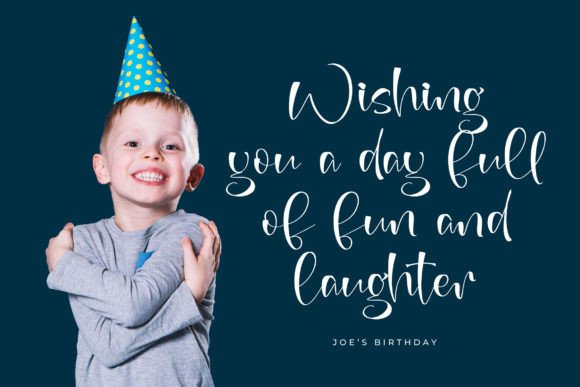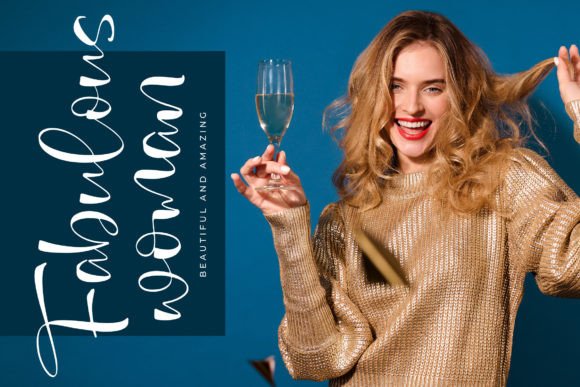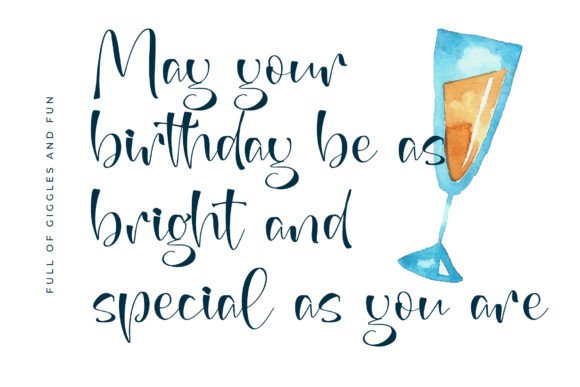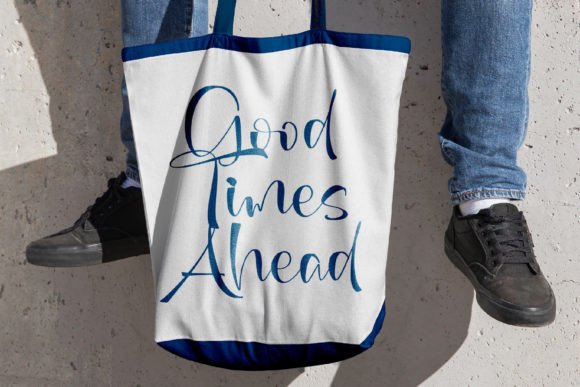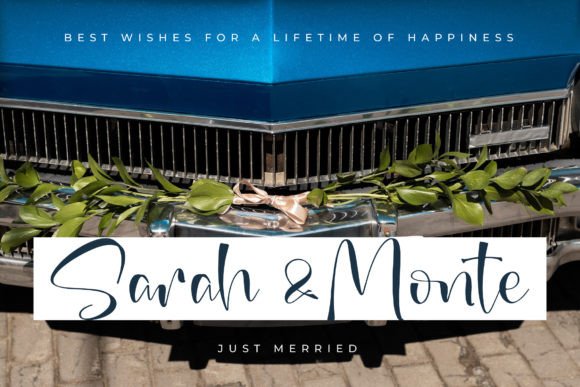
Introducing Annets Birthday Font: The Ultimate Luxury Script Font for Your Creative Projects
Are you a designer or crafter looking for a font that exudes luxury and sophistication? Look no further than Annets Birthday Font, a stunning script font that’s perfect for a wide range of creative projects. In this article, we’ll take a closer look at Annets Birthday – Beautiful Script Font and explore its features, uses, and benefits.
What is Annets Birthday Font?
Annets Birthday Font is a luxury script font designed to add a touch of elegance and refinement to your projects. With its flowing curves and sophisticated lettering, this font is ideal for creating high-end designs that demand attention. Whether you’re working on a logo, branding project, or product packaging, Annets Birthday Font is the perfect choice.
Key Features of Annets Birthday Font
- Luxury Script Style: Annets Birthday Font boasts a beautiful script style that’s perfect for creating luxurious and high-end designs.
- Versatile: This font is suitable for a wide range of projects, including logos, branding projects, homeware designs, product packaging, and more.
- Elegant Lettering: The font features elegant lettering with flowing curves, making it perfect for creating sophisticated designs.
Uses of Annets Birthday Font
Annets Birthday Font is a versatile font that can be used for a wide range of projects, including:
- Logos and Branding Projects: Create a luxurious and sophisticated brand identity with Annets Birthday Font.
- Product Packaging: Add a touch of elegance to your product packaging with this stunning script font.
- Homeware Designs: Use Annets Birthday Font to create beautiful homeware designs, such as quotes, posters, and labels.
- Mugs and T-Shirts: Create stunning designs for mugs and t-shirts with this versatile font.
- Greeting Cards and Invitations: Add a touch of luxury to your greeting cards and invitations with Annets Birthday Font.
Benefits of Using Annets Birthday Font
By using Annets Birthday Font, you can:
- Elevate Your Designs: Add a touch of luxury and sophistication to your designs with this stunning script font.
- Stand Out from the Crowd: Use Annets Birthday Font to create unique and eye-catching designs that demand attention.
- Save Time: With its easy-to-use design, Annets Birthday Font can save you time and effort in creating high-end designs.
- Enhance Your Brand: Use Annets Birthday Font to create a consistent and luxurious brand identity that reflects your values and style.
Tips for Using Annets Birthday Font
Here are some tips for using Annets Birthday Font:
- Use it Sparingly: Use Annets Birthday Font sparingly to create emphasis and add a touch of luxury to your designs.
- Experiment with Colors: Experiment with different colors and textures to create unique and eye-catching designs.
- Pair it with Other Fonts: Pair Annets Birthday Font with other fonts to create a unique and visually appealing design.
Annets Birthday – Beautiful Script Font is a stunning luxury script font that’s perfect for designers and crafters looking to add a touch of elegance and sophistication to their projects. With its versatile design, elegant lettering, and easy-to-use features, this font is ideal for a wide range of creative projects. Whether you’re working on a logo, branding project, or product packaging, Annets Birthday Font is the perfect choice.